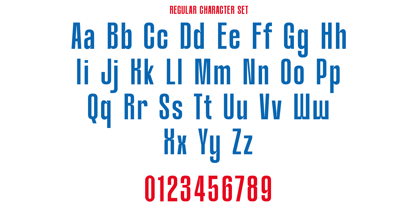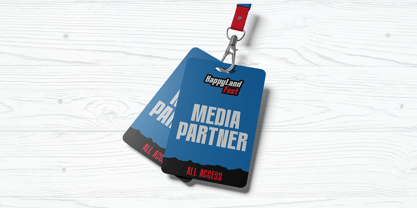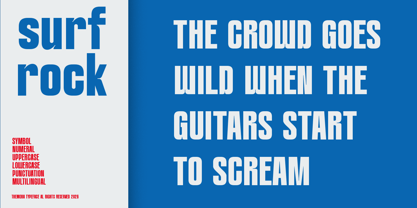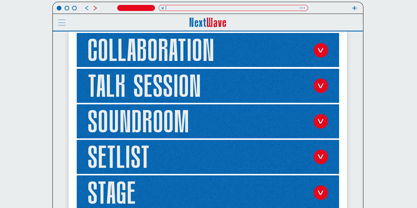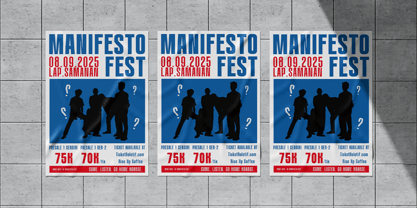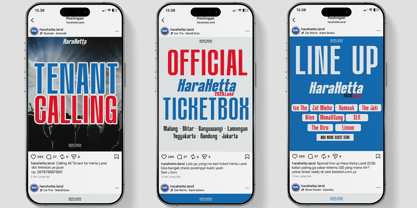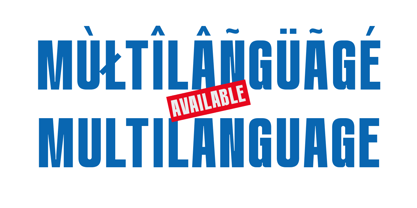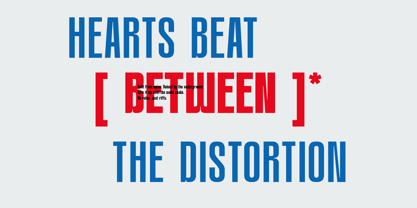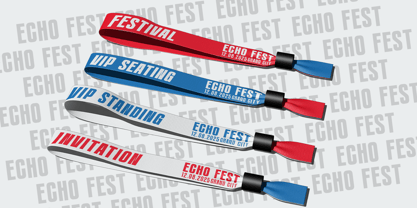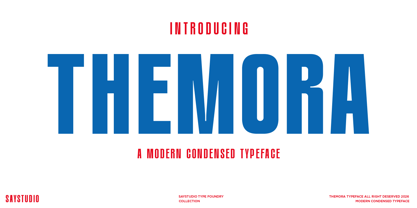
Themora
The Themora Font Family was designed by Mussyayin and published by Say Studio. Themora contains 4 styles and family package options. More about this family
Themora is a modern condensed typeface crafted to deliver a strong visual impact with its clean and contemporary style. Featuring tall and narrow letterforms, it creates a powerful typographic presence, making it ideal for bold headlines and modern branding. The condensed structure allows designers to fit more content into limited spaces while maintaining clarity and a striking visual rhythm. Perfect for posters, sports branding, editorial headlines, advertising layouts, and logo design, Themora offers a dynamic and confident look that stands out in both digital and print media. Its modern proportions evoke a sense of strength, professionalism, and contemporary design aesthetics. Whether utilized for branding, marketing campaigns, packaging, or impactful headlines, Themora empowers designers to create bold and memorable visual compositions. This typeface seamlessly blends modern simplicity with condensed efficiency, making it a versatile choice for various contemporary design projects.